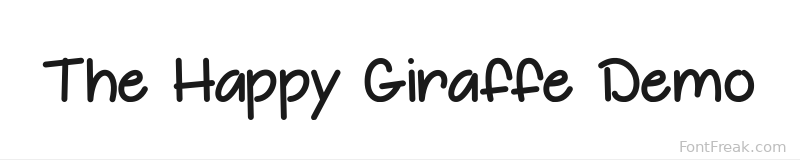
The Happy Giraffe Demo
The Happy Giraffe Demo font, created by Misti Hammers, is a delightful handwritten style that exudes charm and playfulness. This font falls under the decorative category, making it perfect for a wide range of creative projects. Its informal yet elegant design features a medium stroke weight with a subtle contrast that enhances legibility while maintaining a whimsical character. The spacing between letters is well-balanced, allowing for easy readability without sacrificing its unique flair. The handwritten quality is complemented by gentle curves and rounded edges, giving the font a friendly and inviting appearance.
Ideal for various applications, The Happy Giraffe Demo font shines in contexts where a touch of fun is desired. It works beautifully for wedding invitations, where its playful nature can set a joyful tone for the occasion. Additionally, it is well-suited for children’s book covers, adding a lighthearted feel that captures the essence of young readers’ imagination. Restaurant menus can also benefit from this font, as it can create a warm and welcoming atmosphere that encourages diners to explore the offerings. Moreover, content creators will find The Happy Giraffe Demo font to be a fantastic choice for social media graphics, as its distinctive style helps to grab attention and engage audiences effectively.
Targeted towards graphic designers, small business owners, and content creators, this font offers a versatile option that can complement a variety of branding strategies and visual identities. The Happy Giraffe Demo font free download allows users to incorporate this charming typeface into their projects without any cost, making it an accessible choice for those looking to enhance their design work. Overall, its unique visual characteristics and playful spirit make The Happy Giraffe Demo an exceptional font that stands out in any creative endeavor.